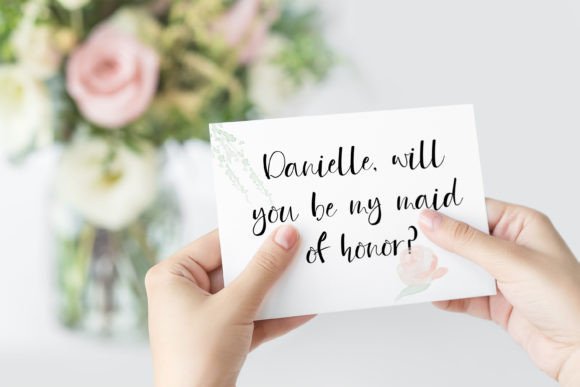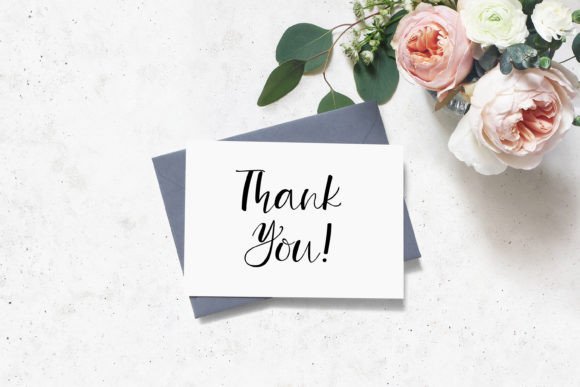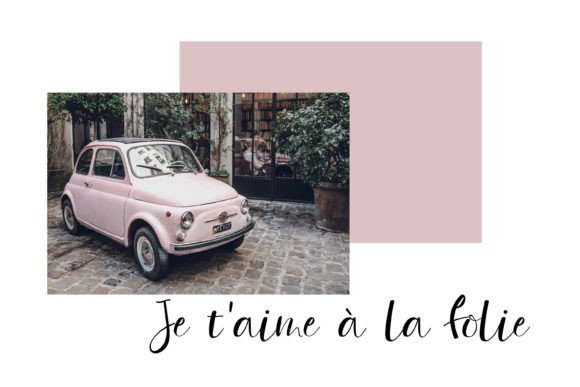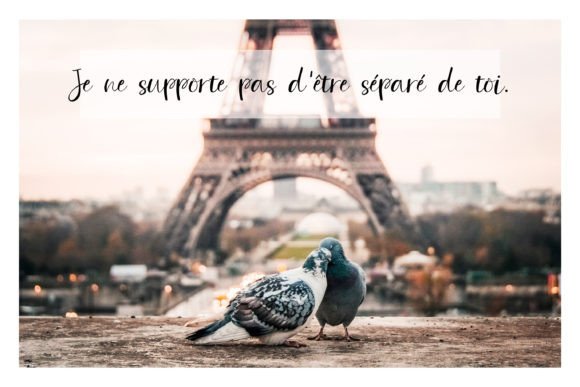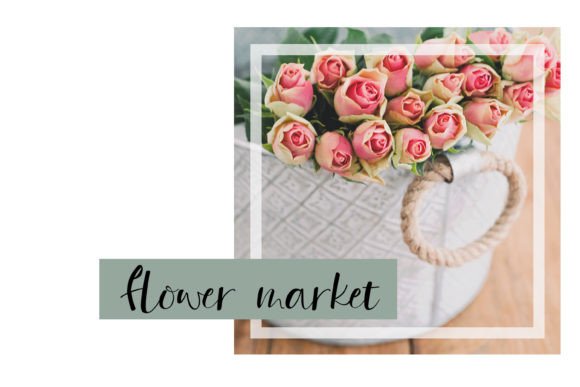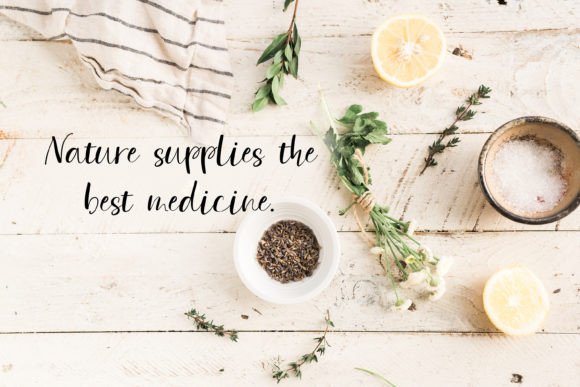
Introduction to Pure Blush Font
Have you ever been in the middle of a creative project, staring at a blank page, and suddenly the words just flow? The ideas start pouring in, and your imagination runs wild. That’s exactly what happened when the creators of Pure Blush Font set out to craft the perfect script font – one that’s both easy to read and a joy to use. With its elegant, flowing lines and versatility in both all caps and lowercase, this font is sure to bring a touch of whimsy to any design project.
Key Features of Pure Blush Font
- High-quality design: The Pure Blush Font is a high-quality design resource ideal for creative projects.
- Transparent background: This font features a transparent background, making it perfect for projects that require a clean and minimalist look.
- Large character set: The Pure Blush Font features a large character set, including uppercase and lowercase letters, numbers, and punctuation marks.
- High-resolution design: The font is designed at 300 DPI, making it suitable for high-resolution printing and digital applications.
- Unique, elegant style: The Pure Blush Font boasts a unique, elegant style that is perfect for adding a touch of sophistication to creative projects.
Honest Review: Pure Blush Font
As a designer, I’m always on the lookout for high-quality design resources to elevate my creative projects. Recently, I stumbled upon the Pure Blush Font, and I must say, it’s a game-changer. ✨
This free download is a beautiful, elegant script font that’s perfect for adding a touch of sophistication to any design. The transparent background makes it easy to customize and pair with other design elements. I’ve used it for various projects, from wedding invitations to branding materials, and it always adds a unique flair.
Here are some of the features that I love about the Pure Blush Font:
- Elegant script style that adds a touch of sophistication
However, I do have a few minor issues with the font:
- ⚠️ Limited font sizes available, which can be a limitation for some projects
- ⚠️ Not as versatile as some other script fonts on the market
Overall, I’m really impressed with the Pure Blush Font. It’s a high-quality design resource that’s perfect for adding a touch of elegance to any creative project. I highly recommend it to fellow designers looking for a unique and sophisticated font.
The Pure Blush Font is ideal for various creative projects, including:
- Graphic design and digital art
- Photography and image editing